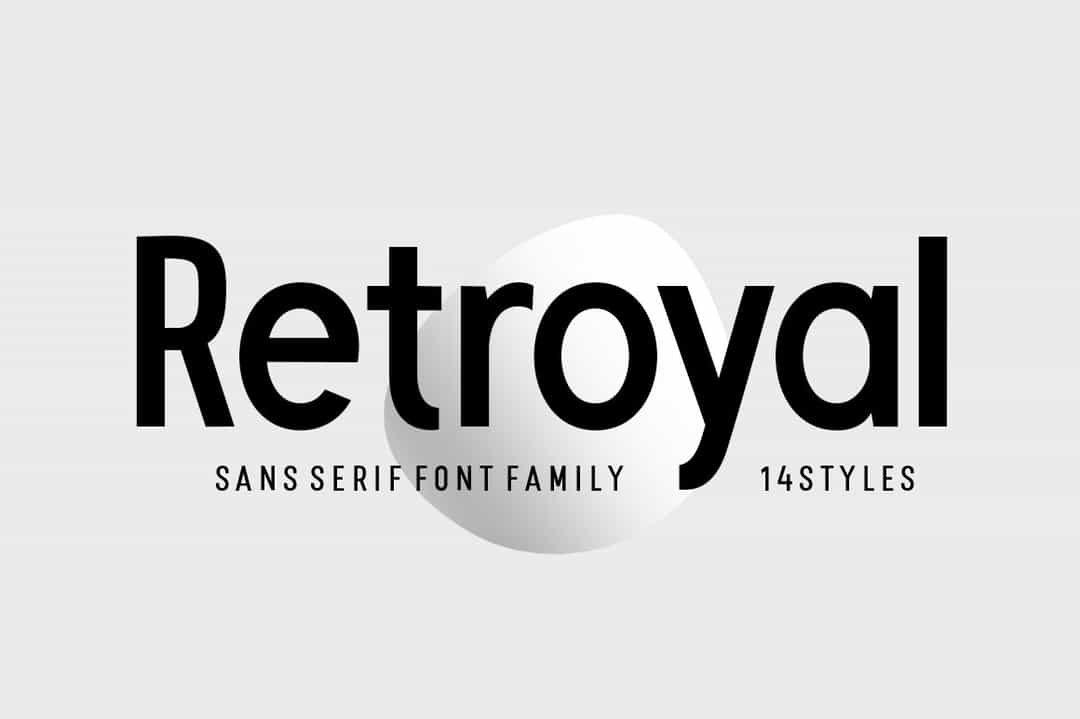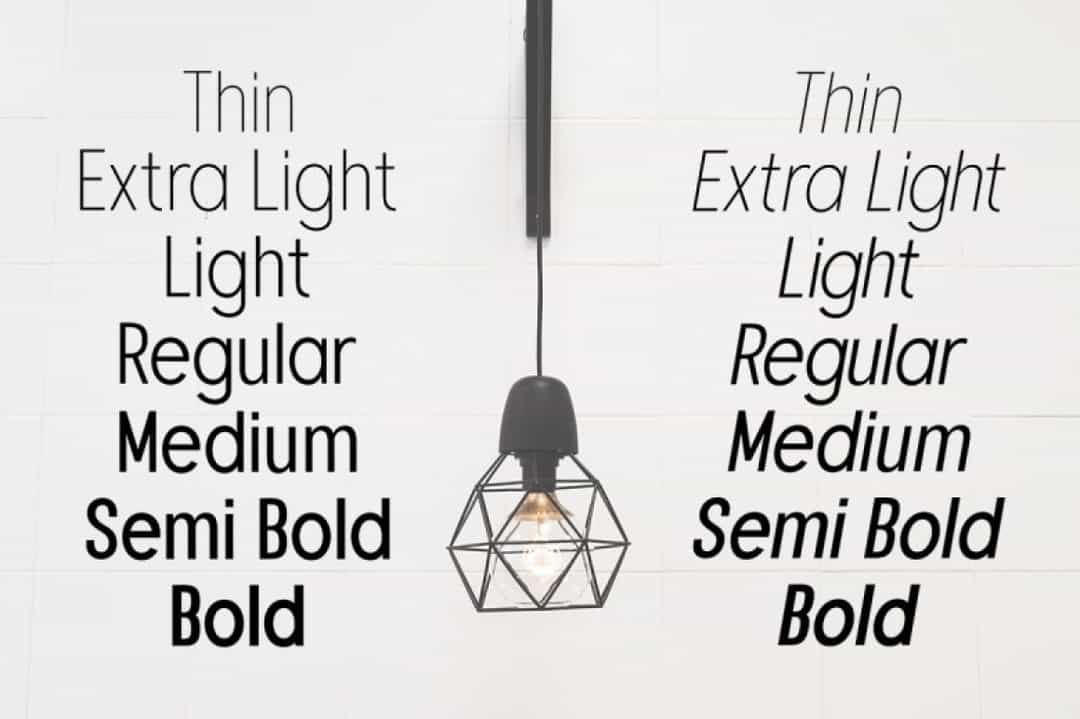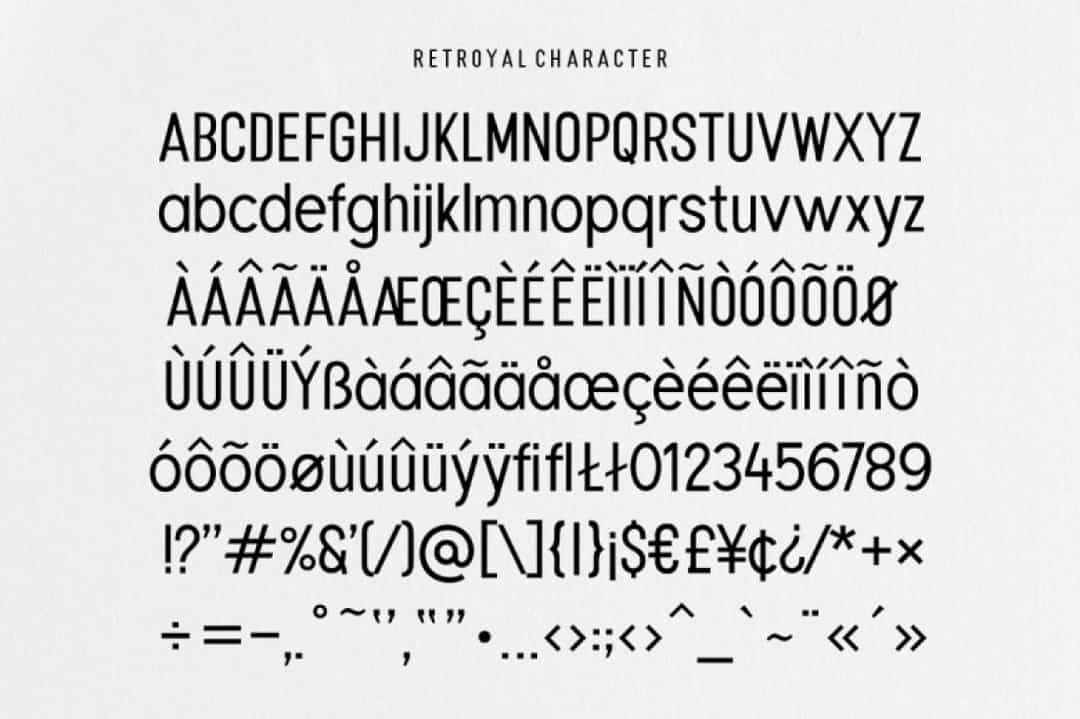
Retroyal Font Family is a sans serif font with elegant lines and minimalist styling, available in seven weights with matching italics. Featuring simple geometry with humanistic features to give warmth, this font family makes for the ideal solution when designing magazines, branding posters, advertisements packaging headlines printing web applications etc.